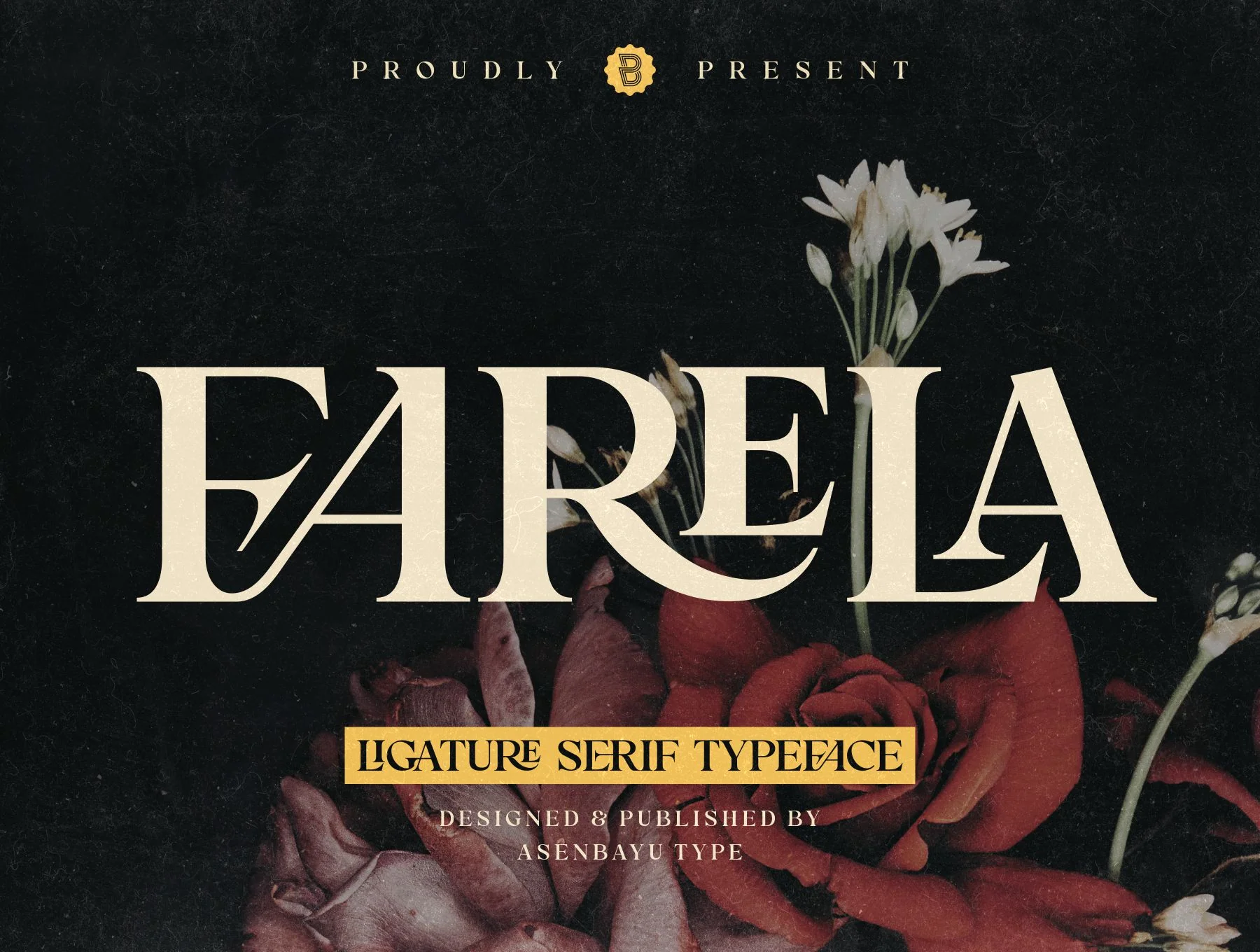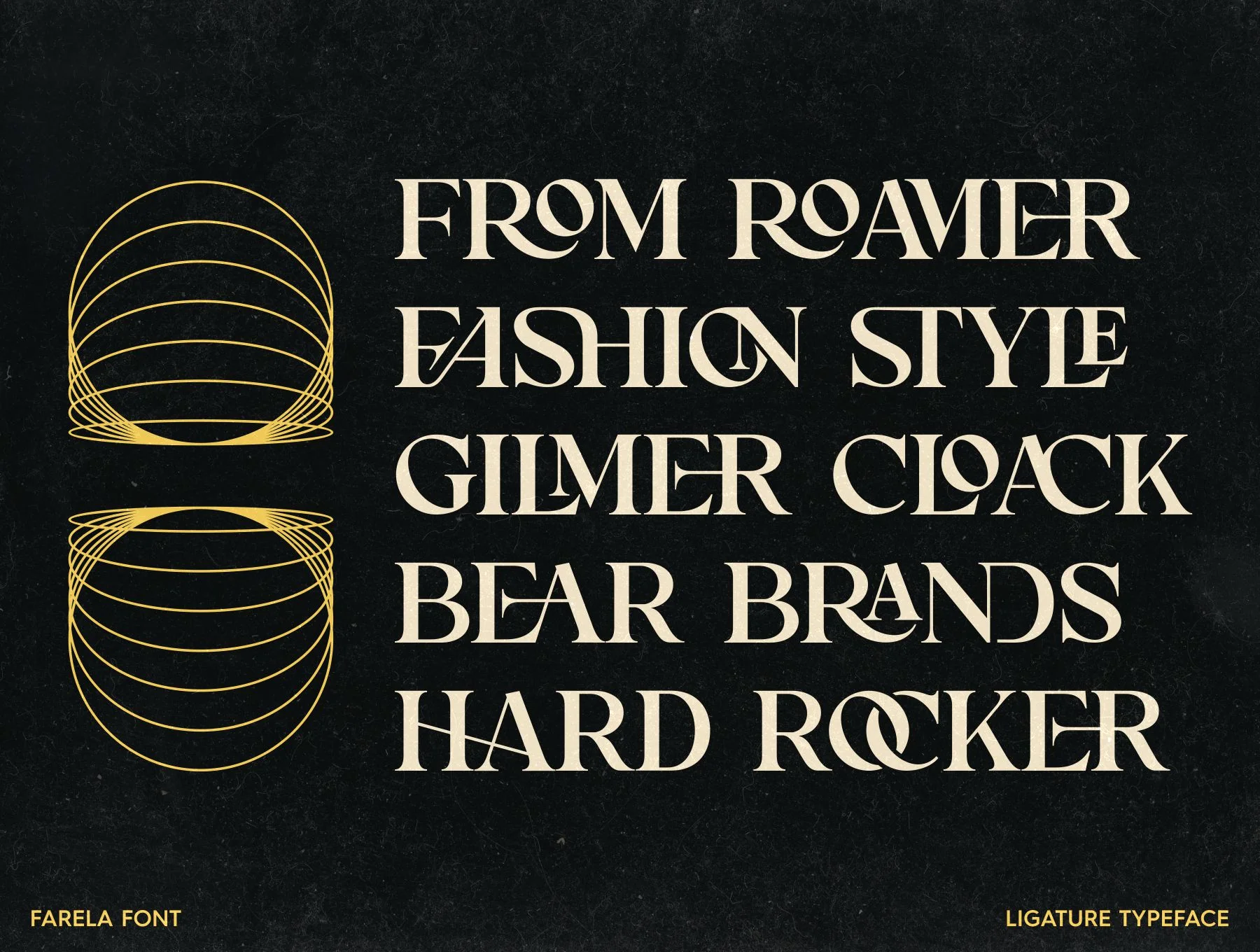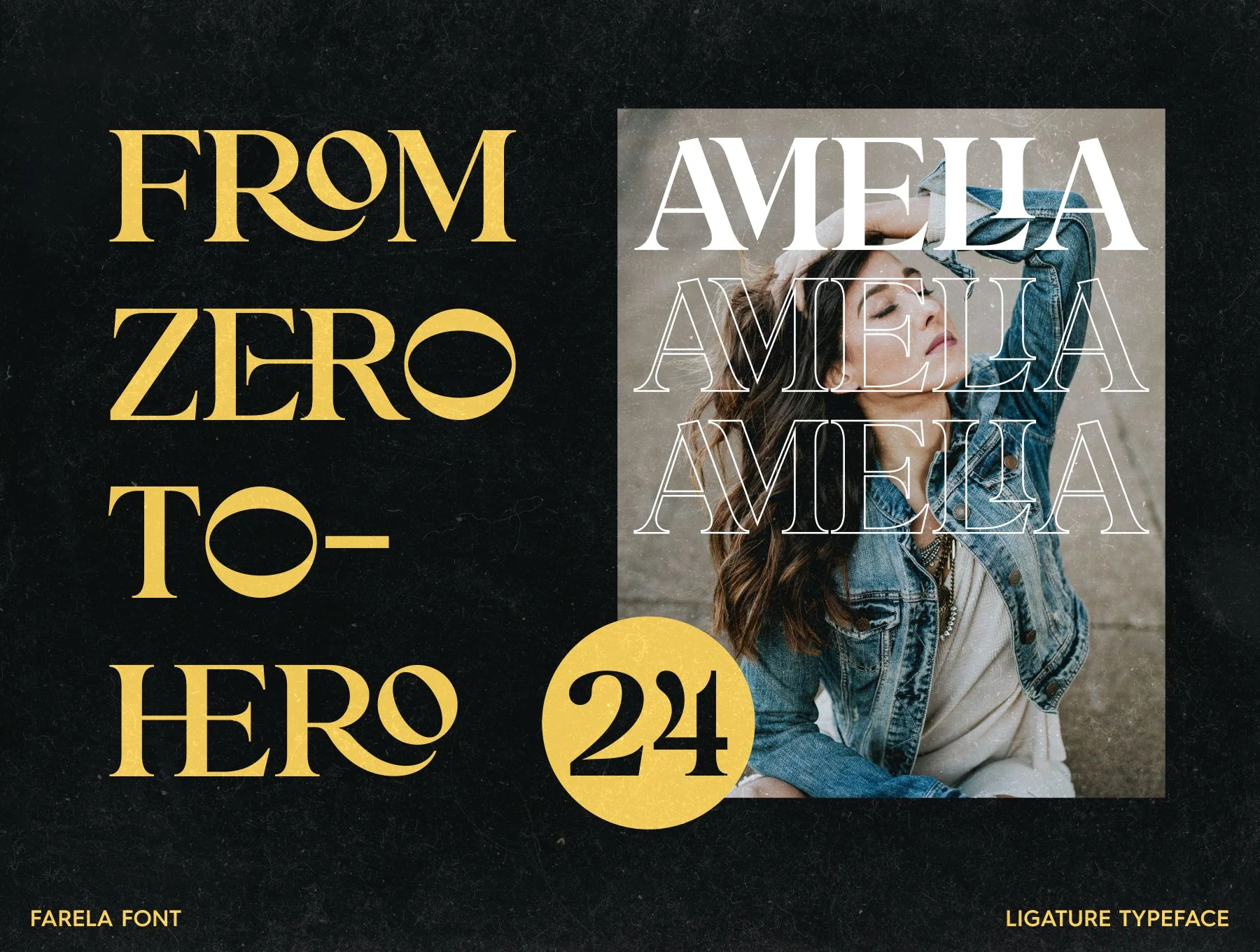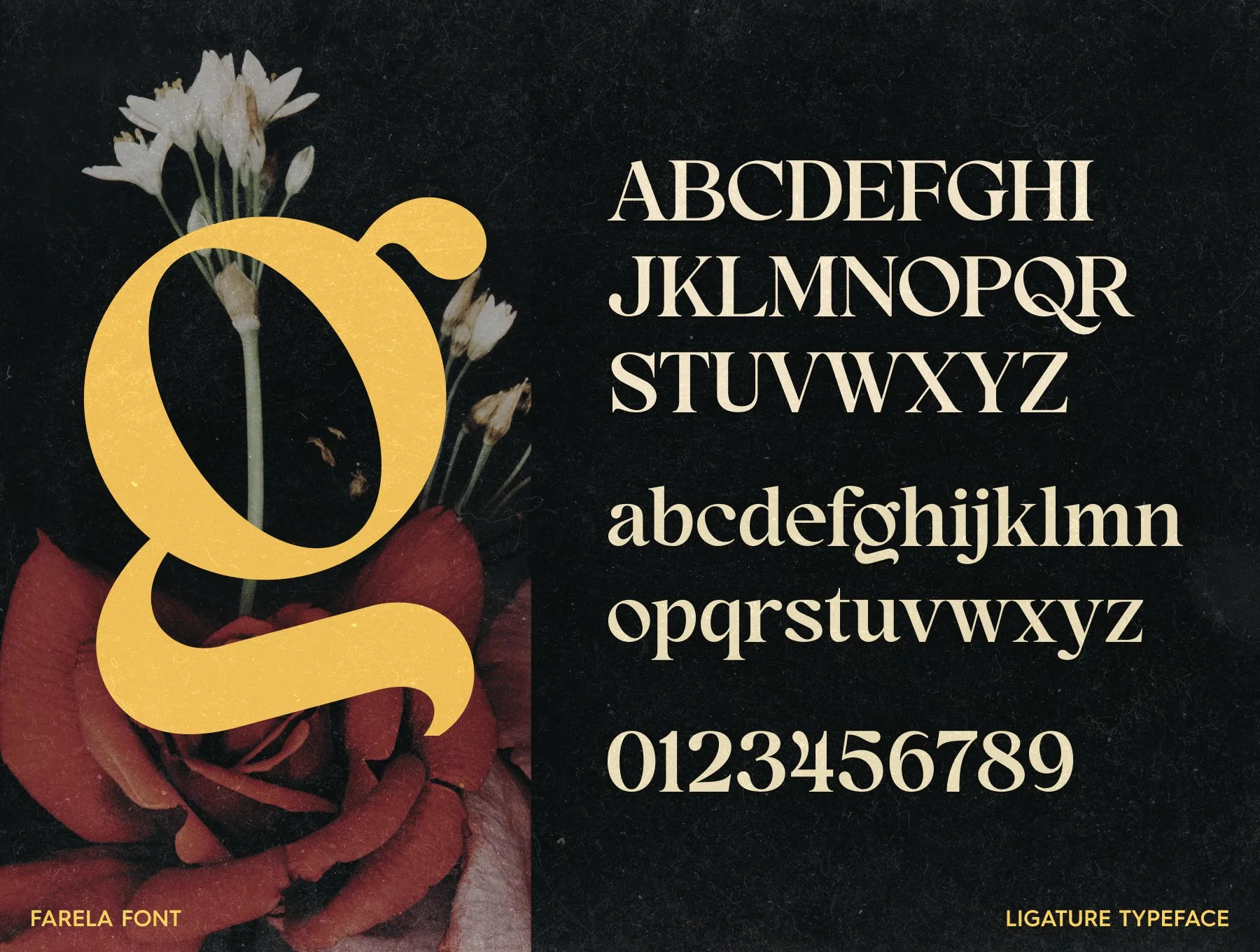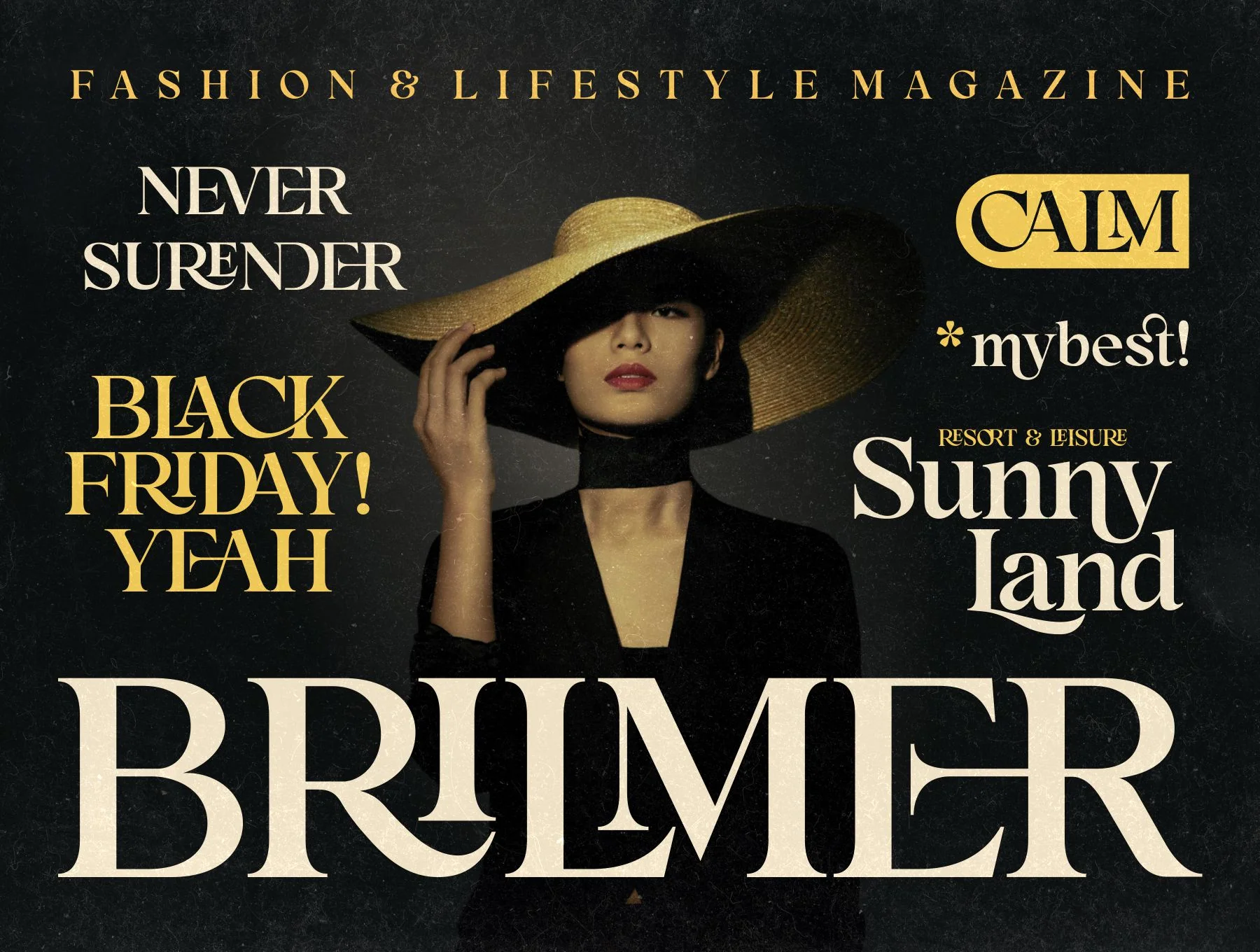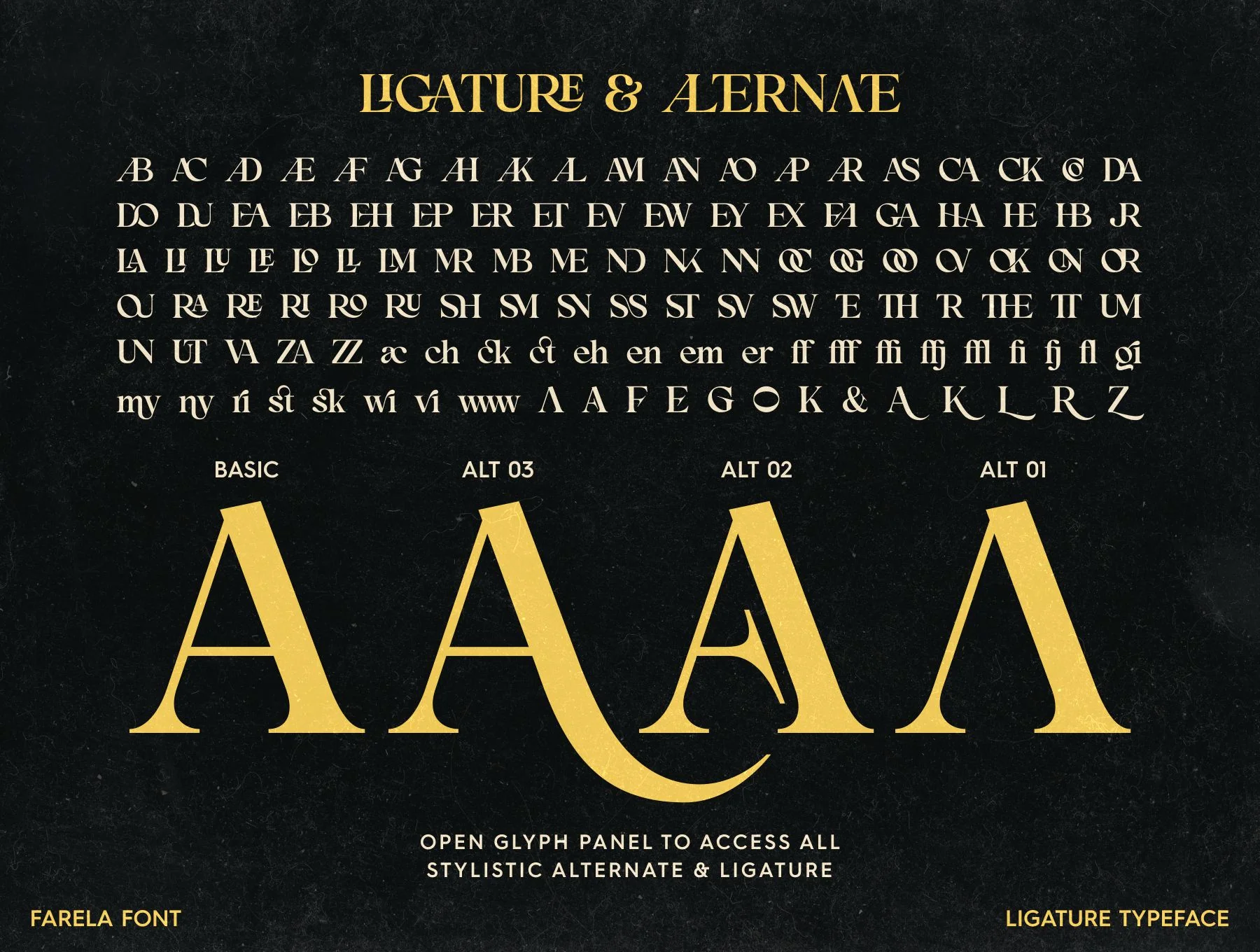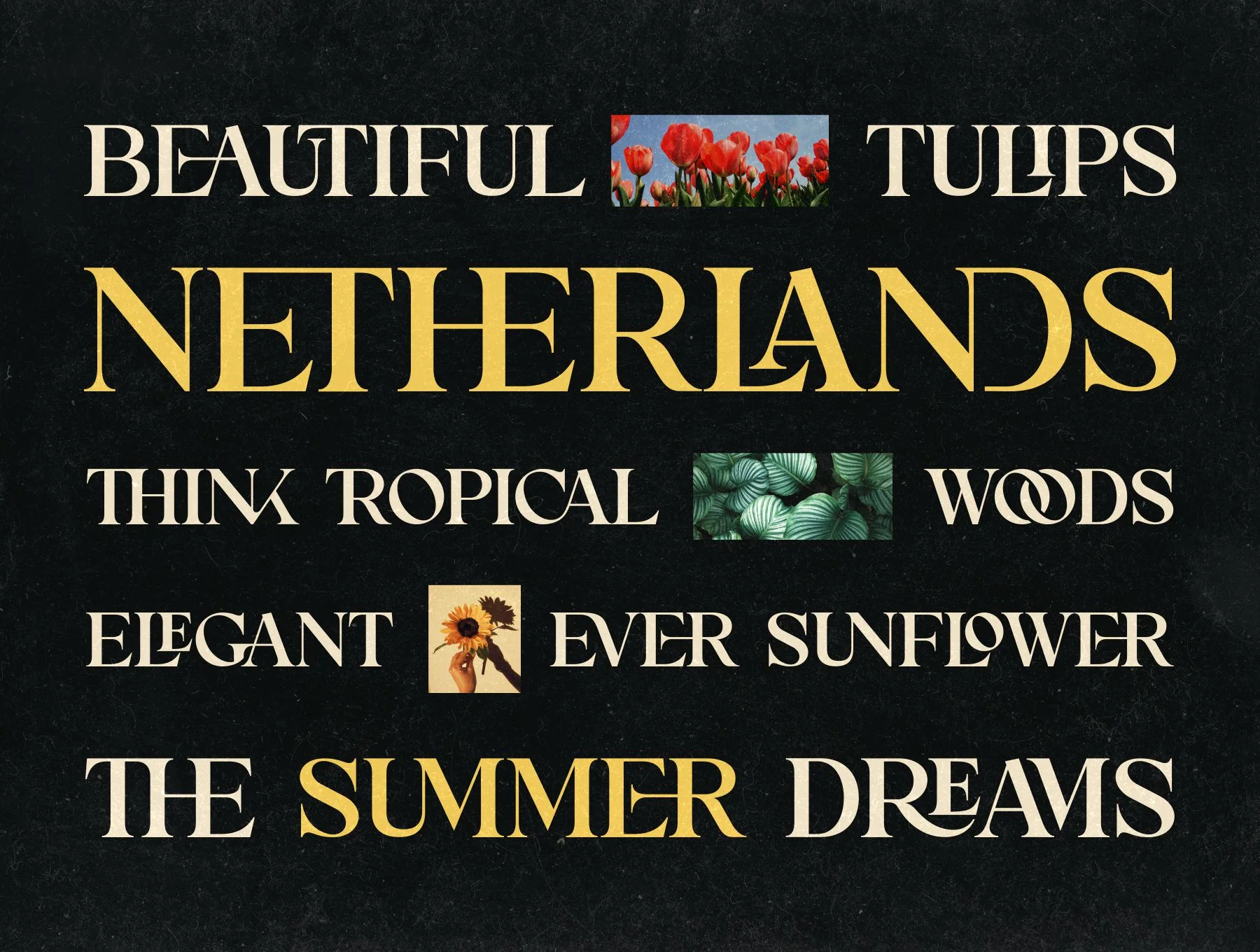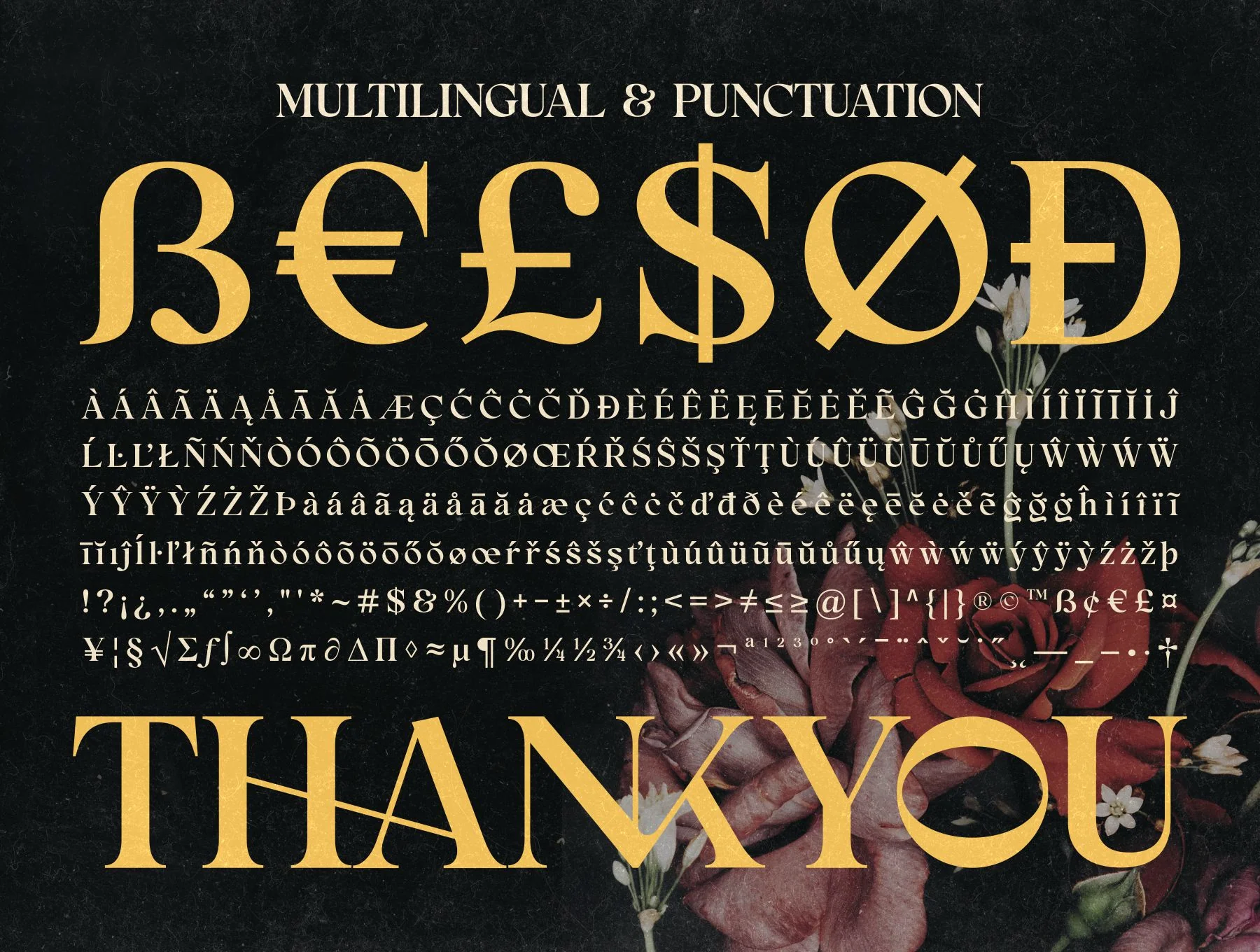
Farela Font
Serif font with ligatures
Regular Character Glyph
Capital and Small Letters
Style Variants and Ligatures
Farela is an elegant serif font with graceful ligatures, ideal for vintage, classic, and retro visuals. It adds a refined, luxurious touch to logos, branding, fashion layouts, magazines, labels, posters, album covers, and more. Access alternates through your software’s Glyph Panel or Character Map; standard ligatures apply automatically.